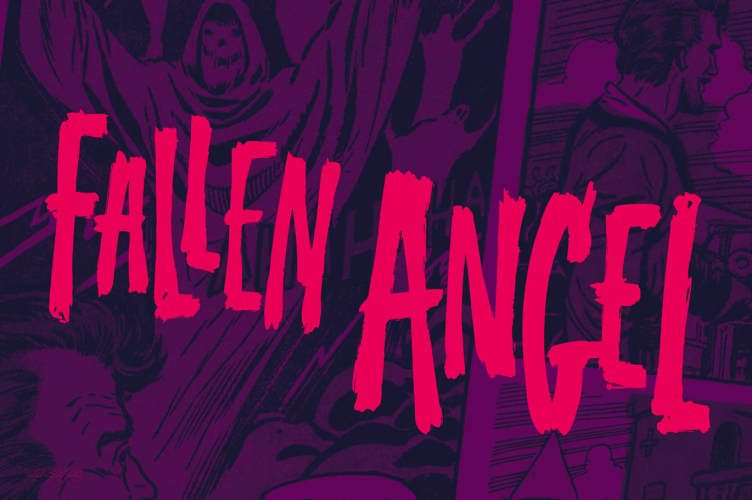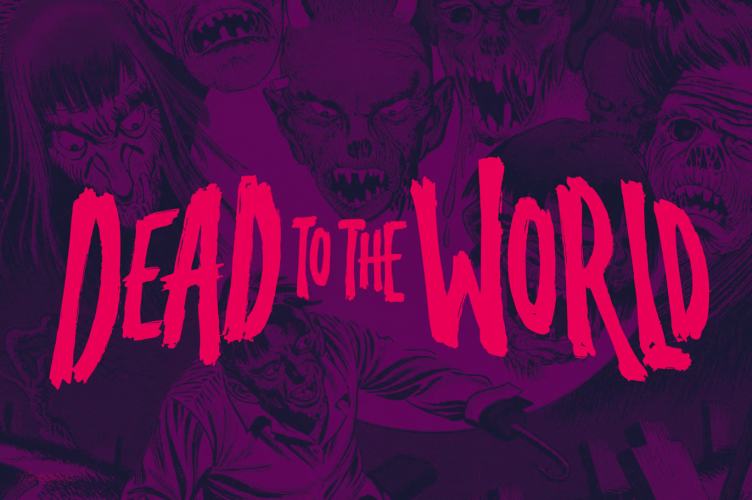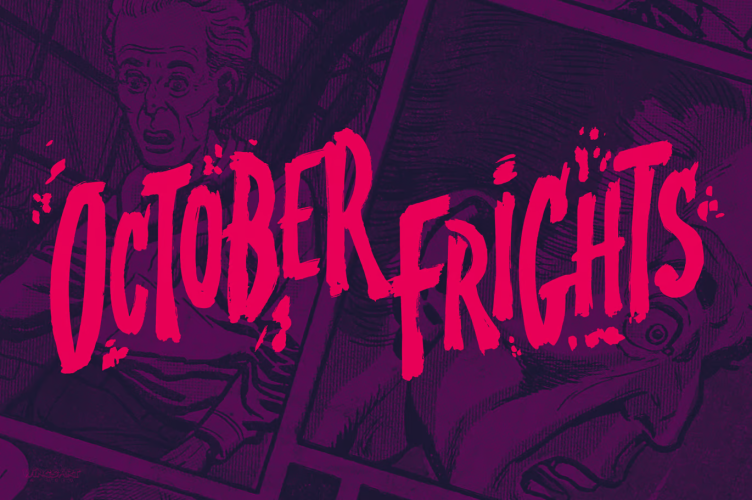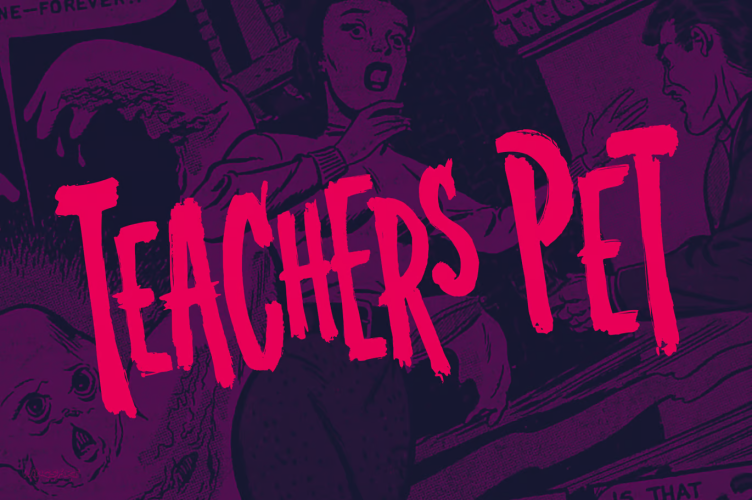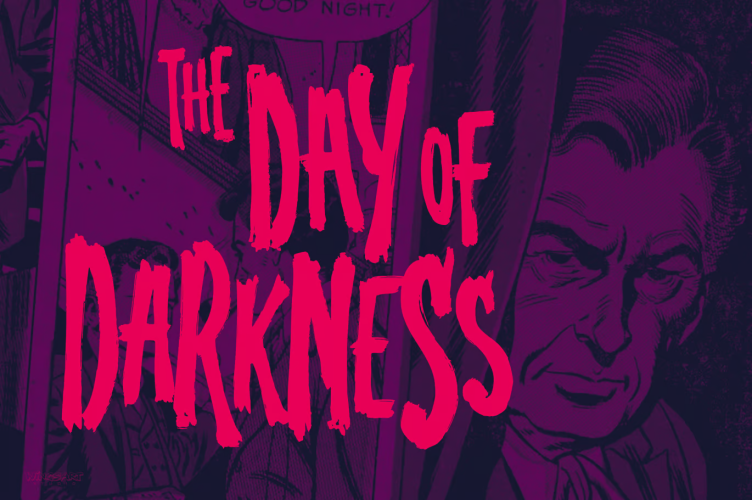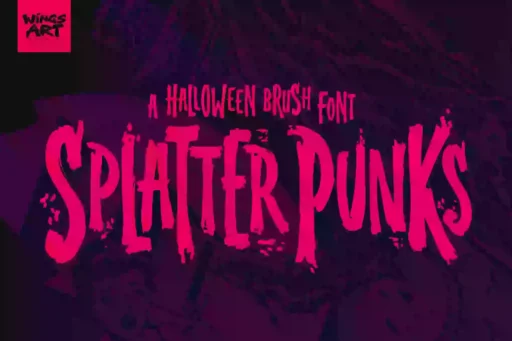
Splatterpunks Font
Get ready for a fresh terror this Halloween! Splatterpunks is a hand-drawn brush font inspired by the blood-soaked horror comics of the 1970s and 80s.
This textured all-caps font brings spine-tingling tension. Its creeping, stretched look adds a sinister vibe to any design. Horror fans will love its bold, dramatic style.
What’s Inside the Splatterpunks Font Family?
Uppercase and lowercase characters (all caps)
Numerals, punctuation, and symbols
Alternative characters for a unique style
Extra paint marks, drips, and splashes
How to Use Splatterpunks?
Mix uppercase and lowercase letters for a wild, unhinged look. Add alternative characters and paint marks for a custom, spooky effect. This font is perfect for Halloween posters, horror movie titles, spooky invitations, and branding.
Splatterpunks Font is a Display Fonts font that brings a professional and versatile look to your projects. Get ready for a fresh terror this Halloween!.